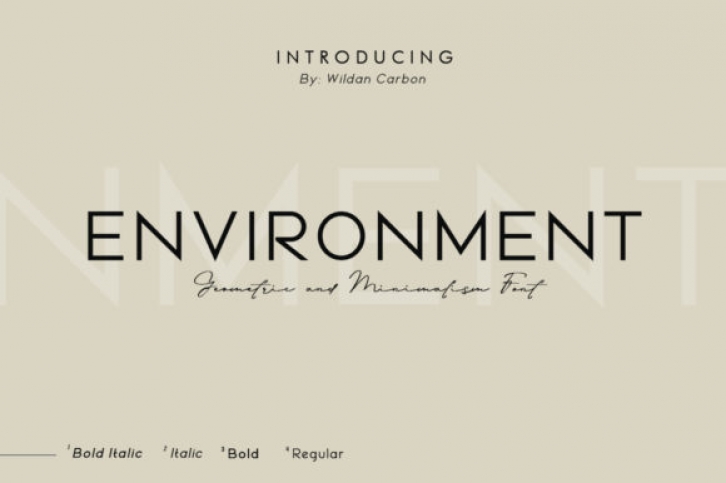
Environment is an geometric, minimalism and elegant sans serif font. It can be used for product presentations, elegant logo designs, packaging or invitation cards. the possibilities are endless.